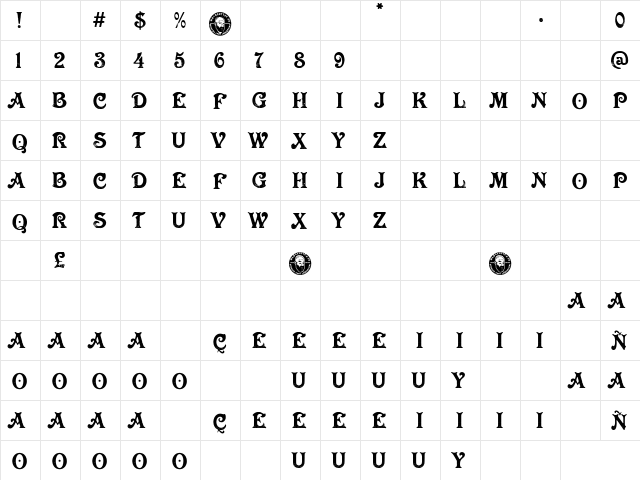
Le Casino Royale Regular
Design Context for Le Casino Royale Typeface
Le Casino Royale is a composed and adaptable typeface that performs quietly and consistently across a wide range of design contexts.